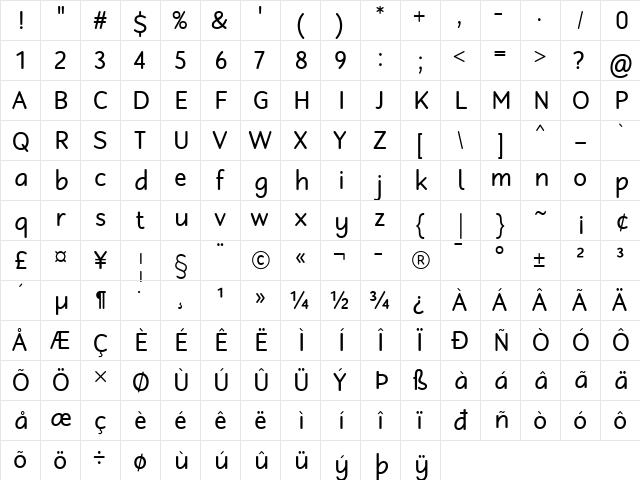
Robaga Rounded Regular
| Foundry | 7NTypes |
| Designer | Situjuh Nazara |
Design Context for Robaga Rounded Typeface
Robaga Rounded softens its letterforms with rounded terminals, giving it an approachable, friendly quality that works well in consumer-facing and digital contexts.
Well-suited to UI design, mobile interfaces, and any brand that wants approachability without sacrificing clarity.
Font Pairing: Pairs well with a rounded or humanist sans for body copy, maintaining the friendly tone without relying on Robaga Rounded to carry extended reading.
Pro Tip: Use Robaga Rounded for UI elements, app interfaces, and anywhere a friendly, approachable tone needs to be maintained without sacrificing clarity.